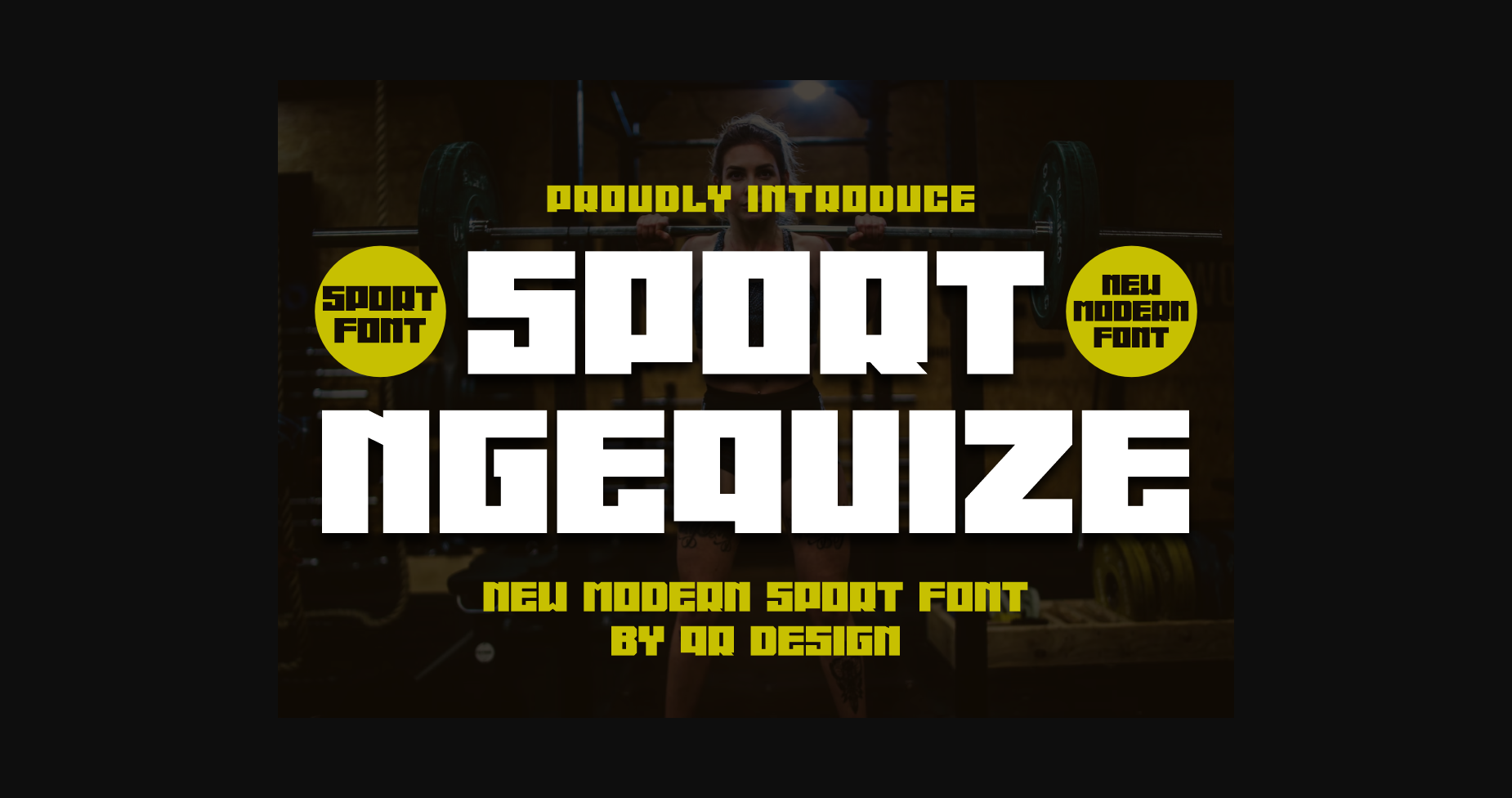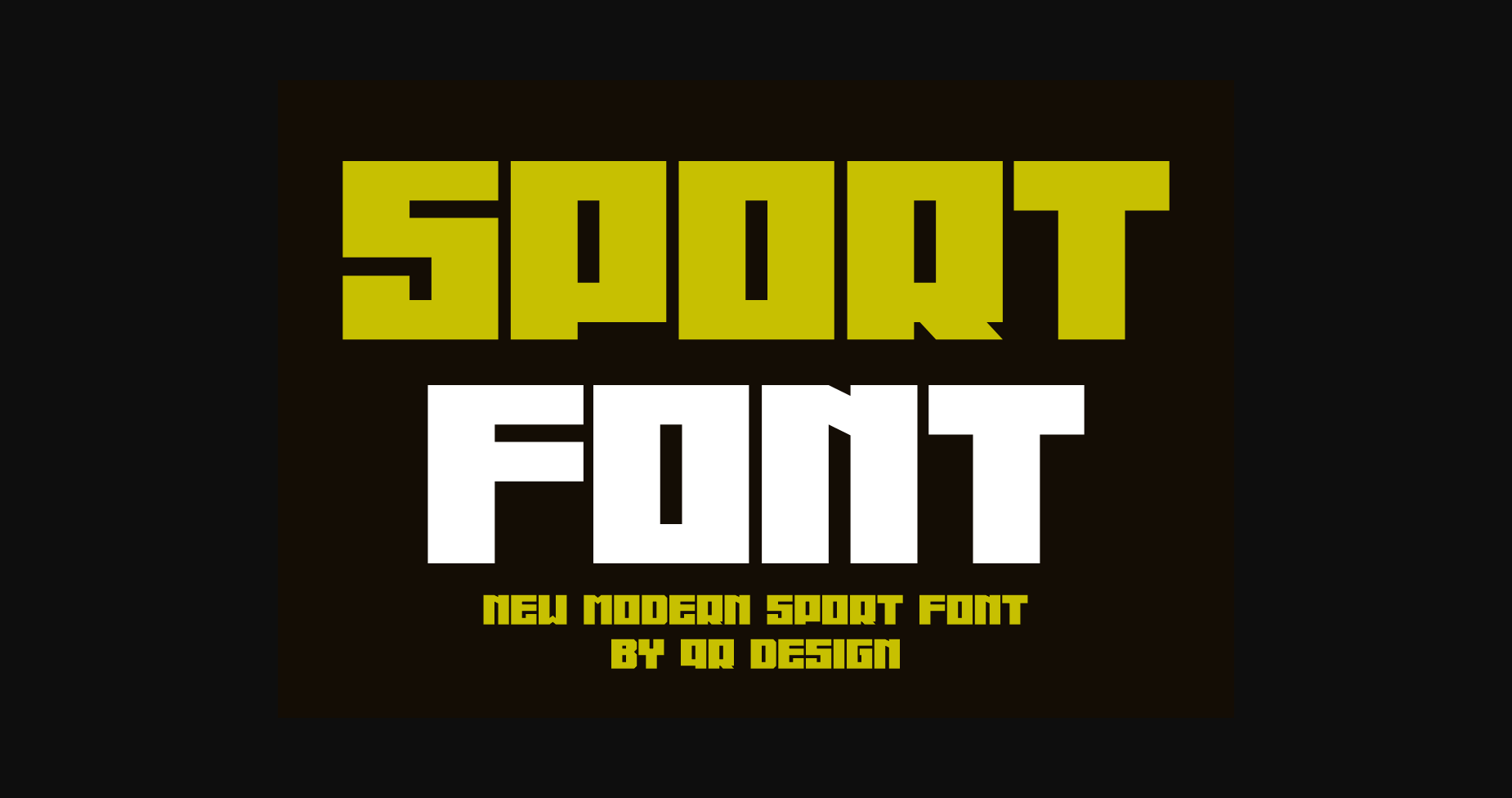
About Sport Ngequize Font
Sport Ngequize Font is a bold and authentic display font.
The font is suitable for any branding project like logo, t-shirt printing, sport, and many more.